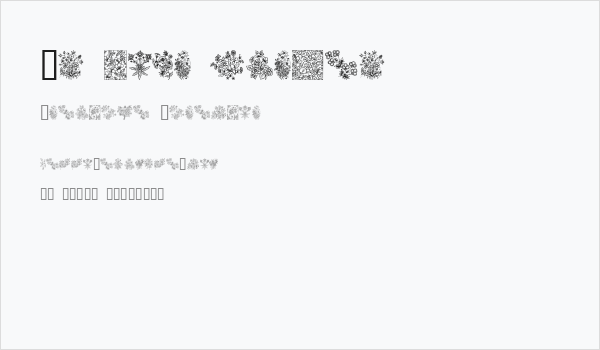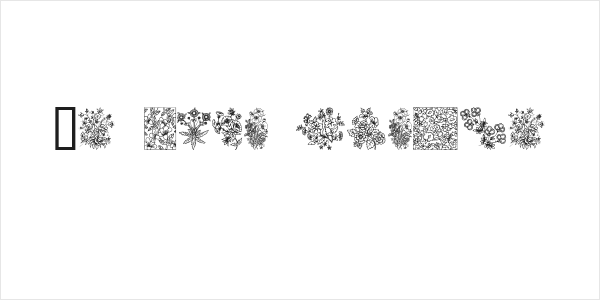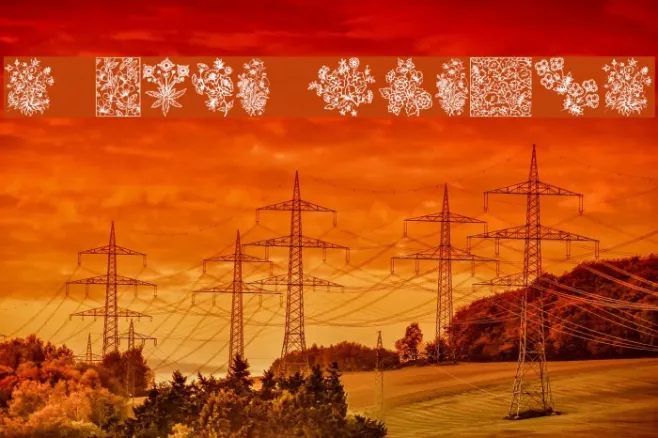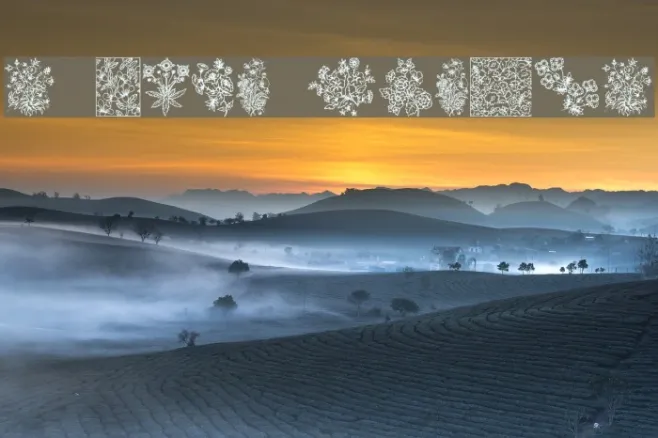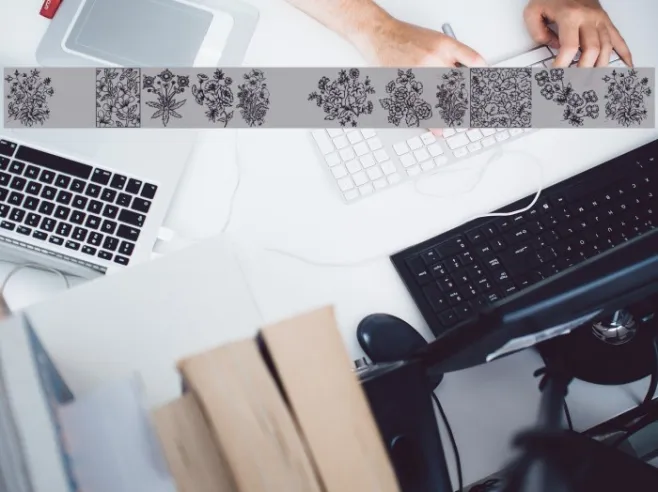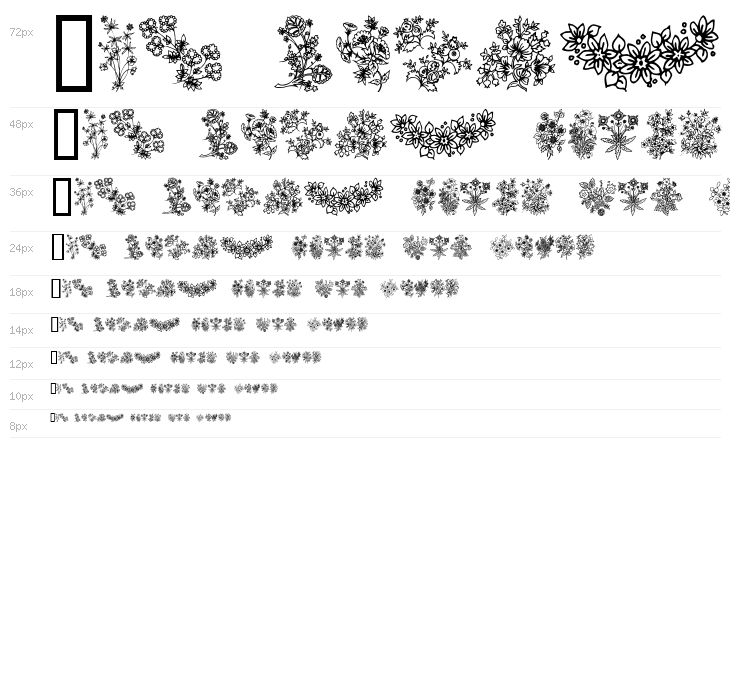
In your garden Font
In your garden Description
A decorative font featuring intricate floral illustrations for each character, with detailed line art of various flowers and botanical elements replacing traditional letterforms and numerals.
| Overall Style | Decorative, Botanical, Artistic |
| Use Case | Logos, Headlines, Decorative text, Invitations |
| Proposed Projects | Wedding invitations, greeting cards, botanical branding, decorative posters, event signage. |